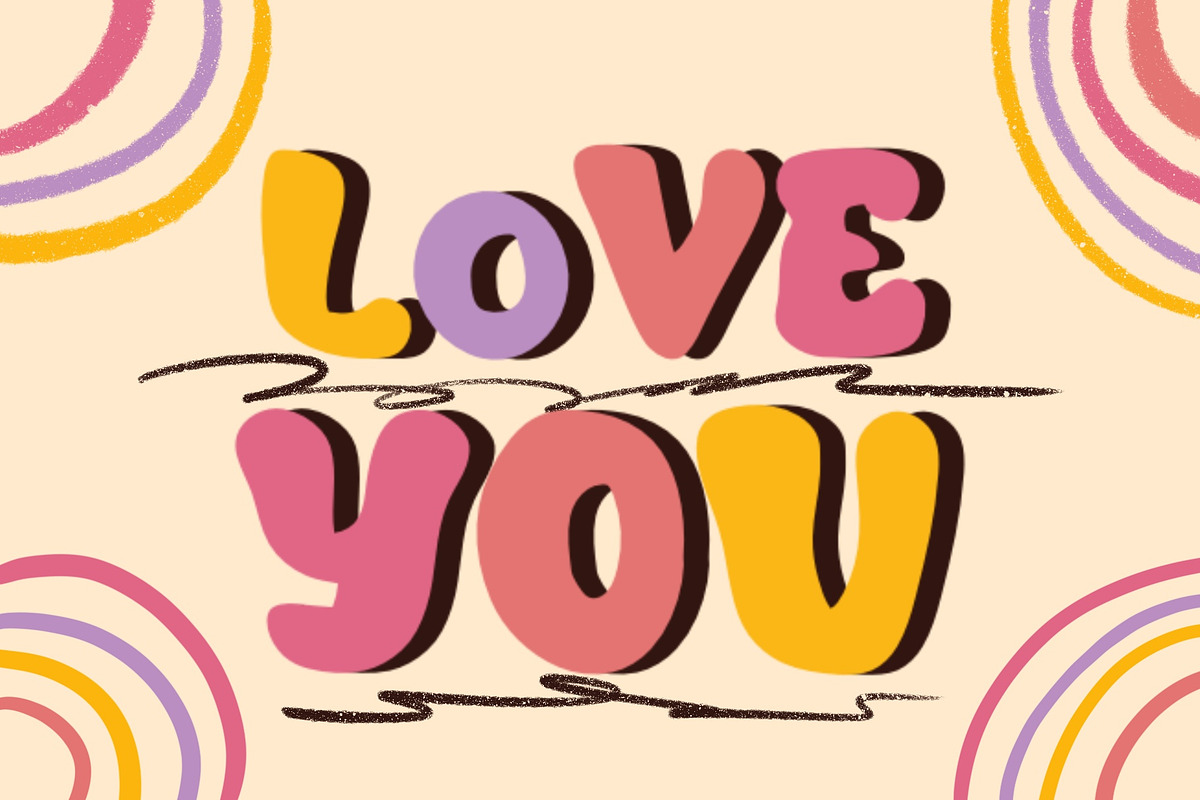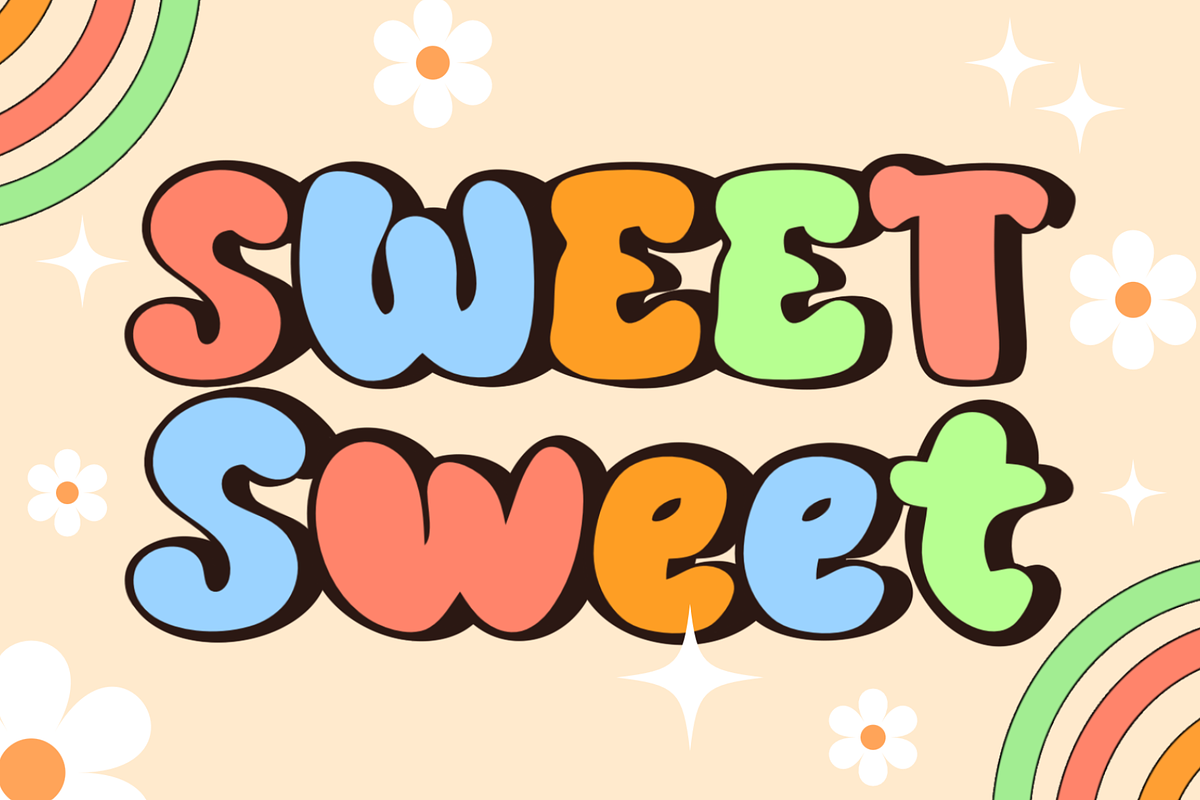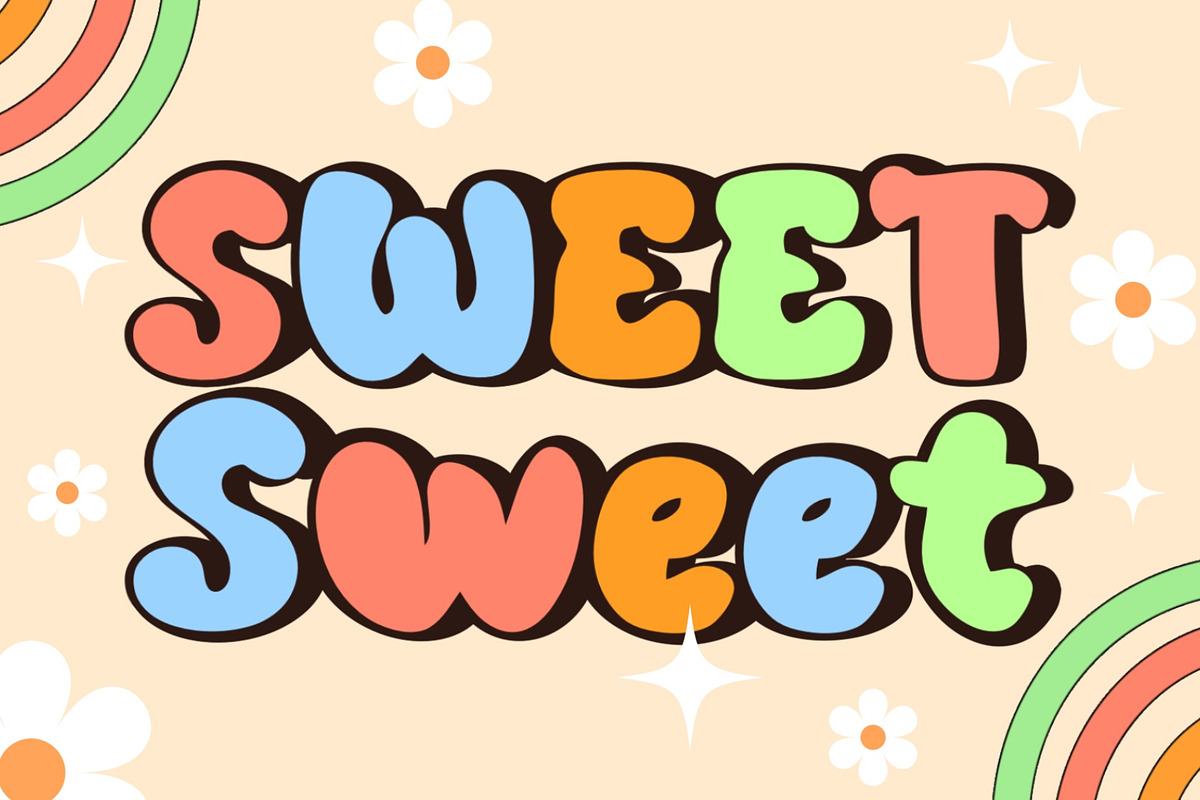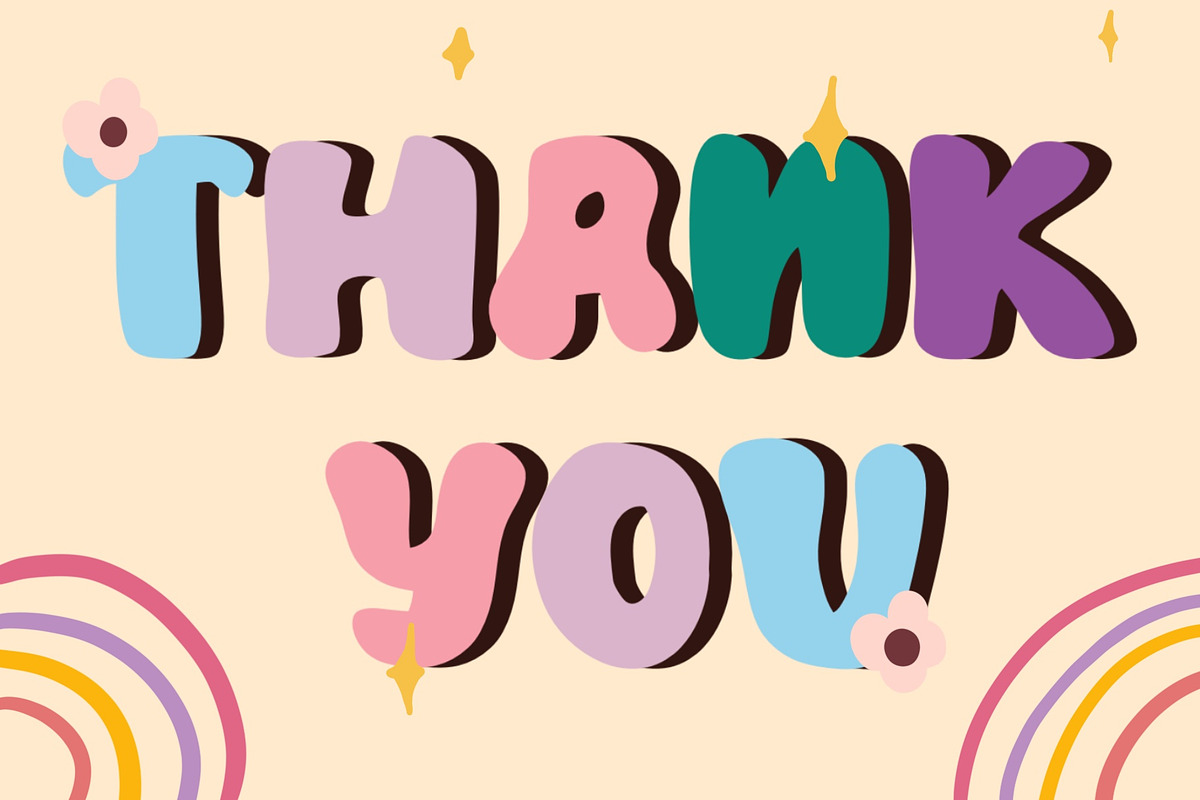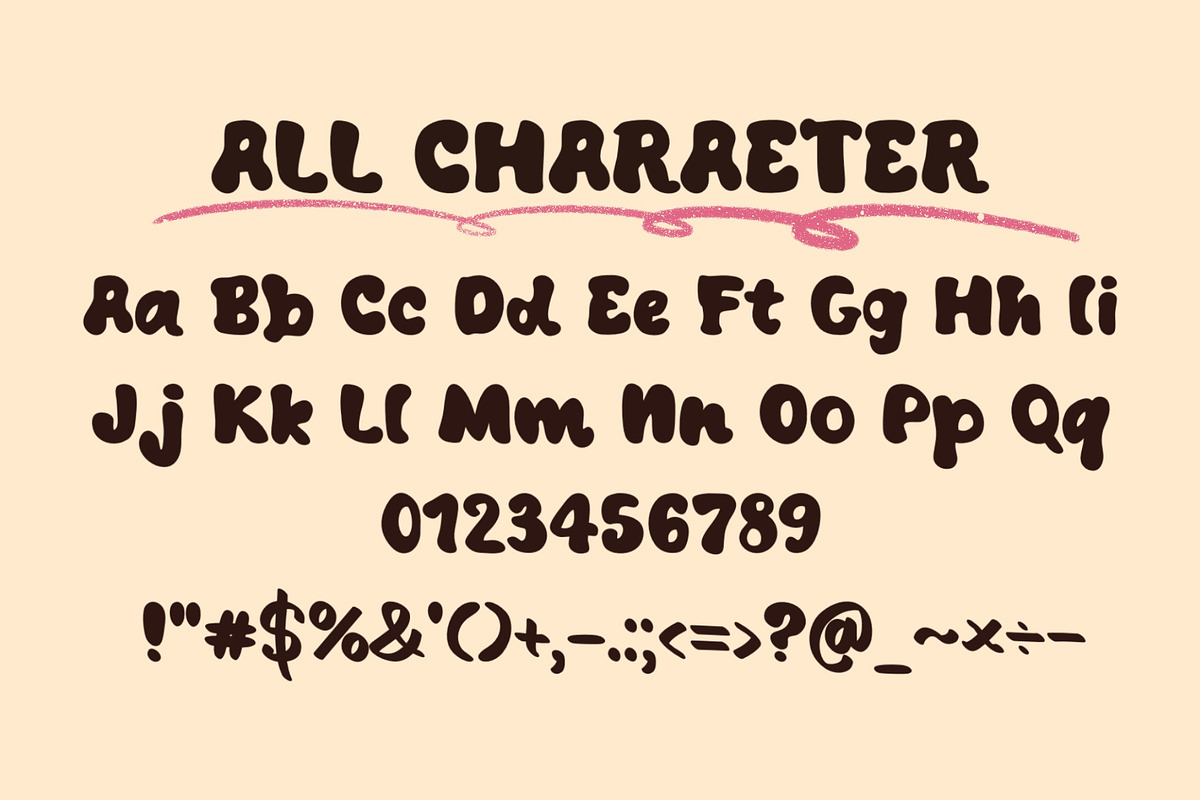
Sweet Sweet
Indulge in the sweetness of the Sweet Sweet font and add a delightful touch to your designs. This charming and whimsical typeface is perfect for all things cute, lovely, and confectionery. The Sweet Sweet font will make your creations irresistibly adorable with its playful curves and soft edges. Its delightful letterforms exude a sense of joy and happiness, making it the ideal choice for greeting cards, invitations, and all things related to celebrations.